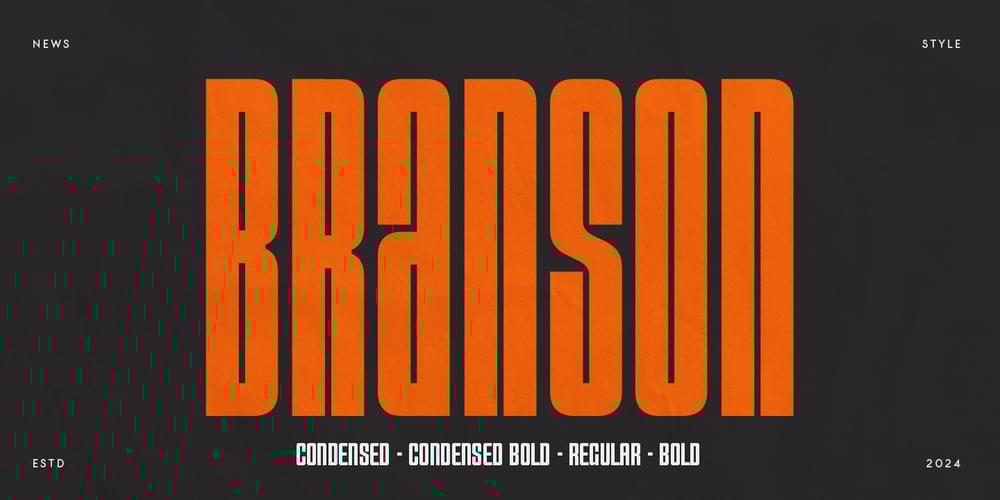
Branson Font Family was designed by Zamroni Hamzah and published by Sensatype Studio. Branson contains 4 styles and family package options. Branson, an Unique Condensed Headline Font Family that we created special for Professional and Modern Headline needs that will give you more Unique look and more efficient in area, with 4 weights in unique shape will be ready to add value of your design. It so nice to leverage designer or product owner that need solutions to make their design look more Professional and modern. And specially for this font, We prepared 4 weights to help you create unlimited variations for your creative needs.Branson Condensed Headline Font Family ready with: 4 Weights inside 4 format already for each weight Preview as a inspirations that you can do with Branson font Ready with Lowercase and Uppercase characters Wish you enjoy our font. ๐